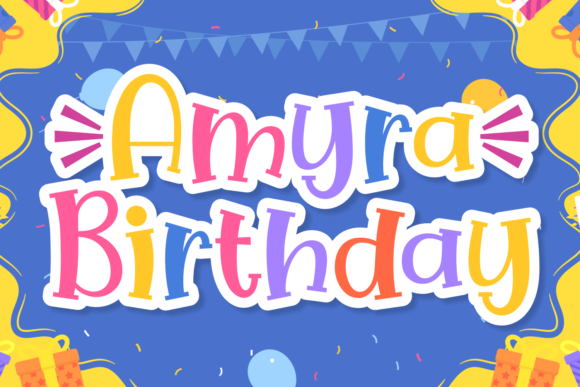
Are you tired of bland and boring fonts that fail to capture the essence of your creative vision? Look no further than Amyra Birthday Font, the ultimate display font designed to add a touch of whimsy and playfulness to your designs.
With its charming curves and quirky details, Amyra Birthday Font is the perfect choice for adding a unique and memorable touch to your music posters, flyers, social media graphics, and more. Its playful nature is sure to grab attention and leave a lasting impression, making your designs stand out from the crowd.
Picture this: your music poster adorned with Amyra Birthday Font's eye-catching characters, inviting music lovers to immerse themselves in the vibrant energy of your event. The bold strokes and playful swashes create a sense of movement and rhythm, perfectly complementing the energy of live music.
The versatility of Amyra Birthday Font extends beyond music-related designs. Its cheerful and quirky personality lends itself effortlessly to birthday invitations, greeting cards, and other festive creations. Spread joy and laughter with every word you type, as Amyra Birthday Font transforms your designs into cheerful expressions of celebration.
Unlock a world of creative possibilities with Amyra Birthday Font. Its unique and eye-catching design is sure to captivate and delight your audience, leaving them with a lasting impression that keeps them coming back for more. Join countless designers who have embraced the magic of Amyra Birthday Font and elevate your designs to new heights of creativity and joy.